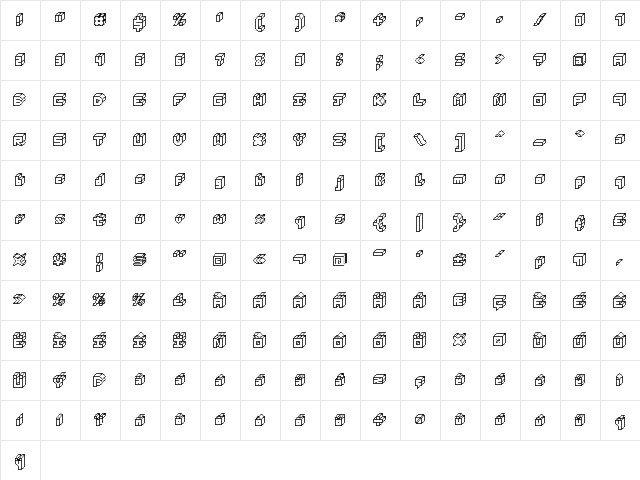
Complete 3D Thirteen Pixel Fonts Regular glyph index. Displaying only characters natively supported by 3D Thirteen Pixel Fonts Regular font.
3D Thirteen Pixel Fonts is rooted in pixel-grid construction, making it a natural fit for game UI, retro computing aesthetics, and digital nostalgia projects.
Pro Tip: Use 3D Thirteen Pixel Fonts at sizes that align with its pixel grid for the sharpest rendering - scaling to non-integer multiples can introduce unwanted blur.